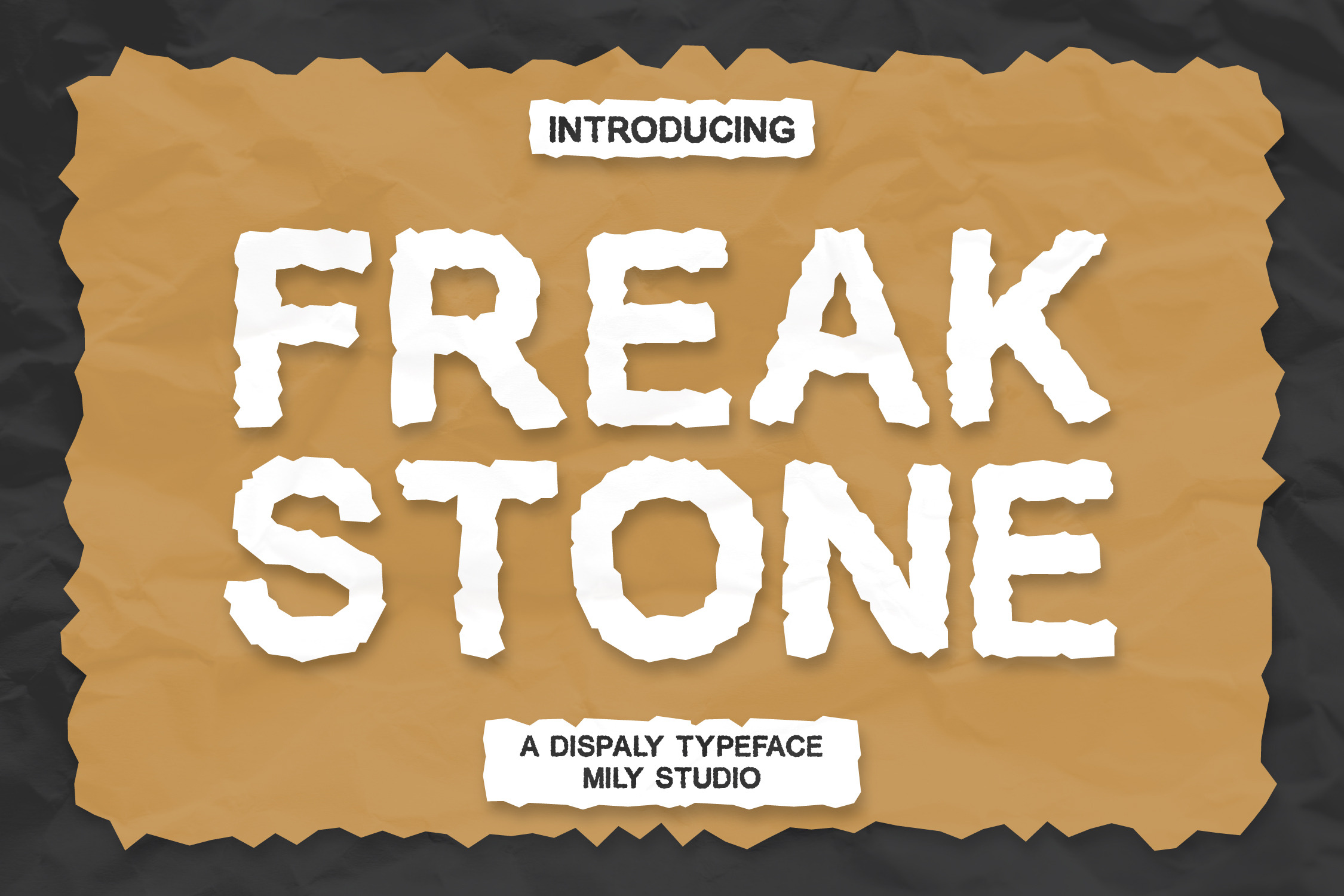
Freak Stone - Display Typeface
Freak Stone is a display font inspired by rock stone-style typography. This font is perfect for designs that aim to be more attractive. Created with a high level of aesthetic quality, it is suitable for T-shirts, comics, book covers, posters, merchandise, logotypes, and much more.